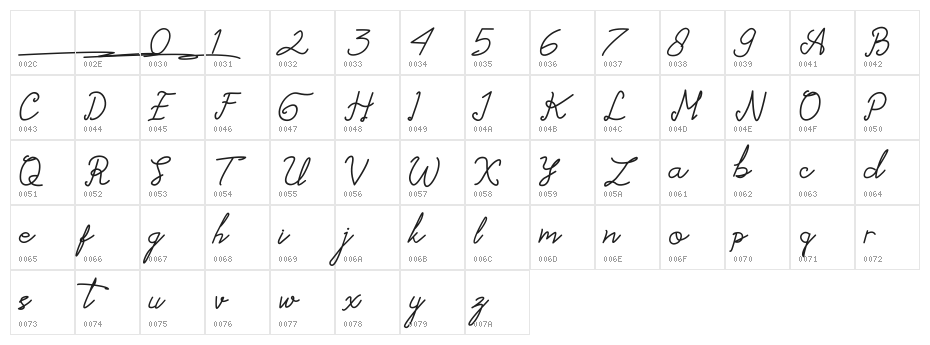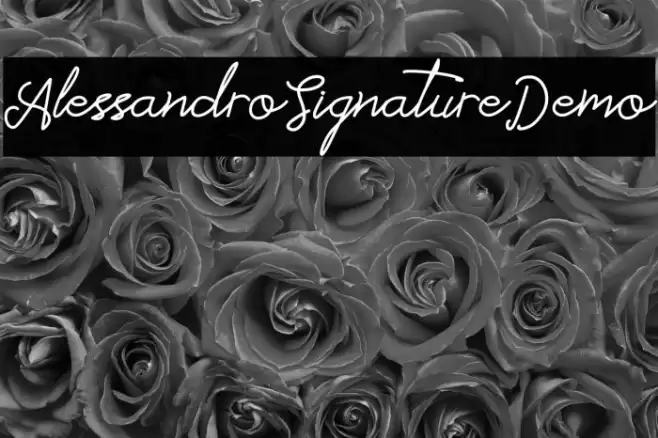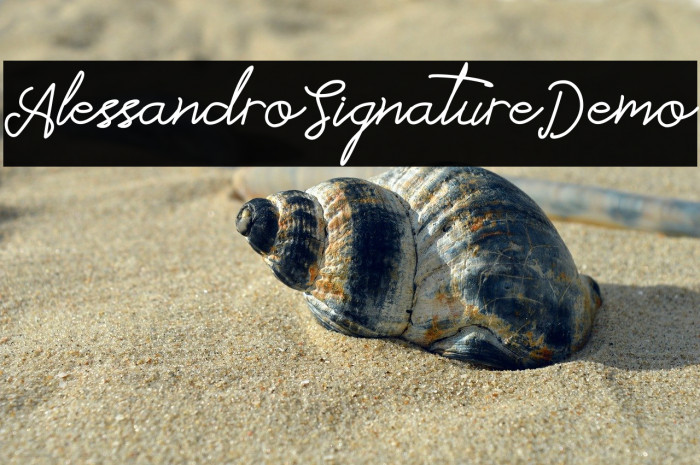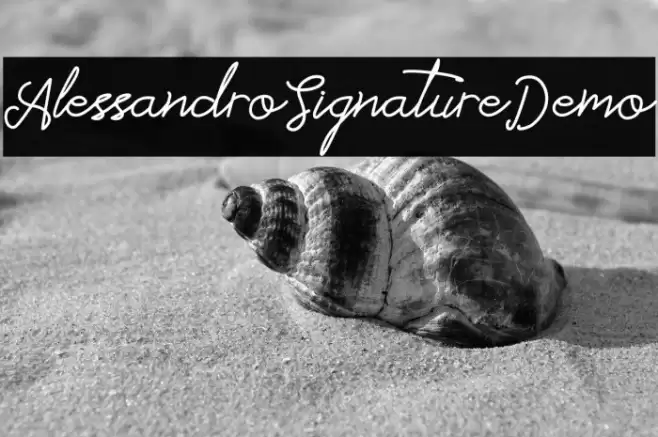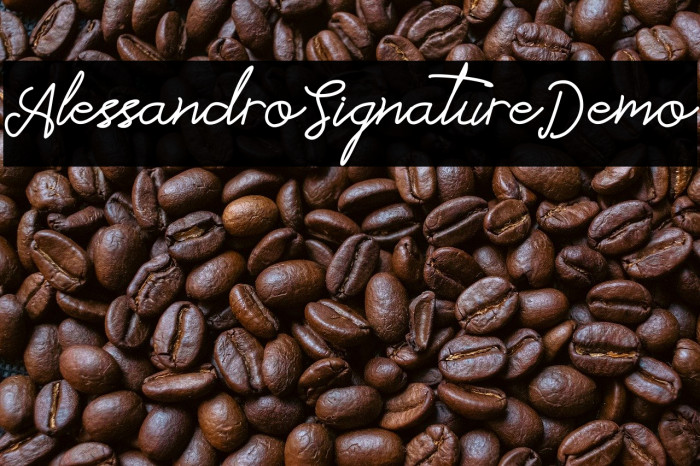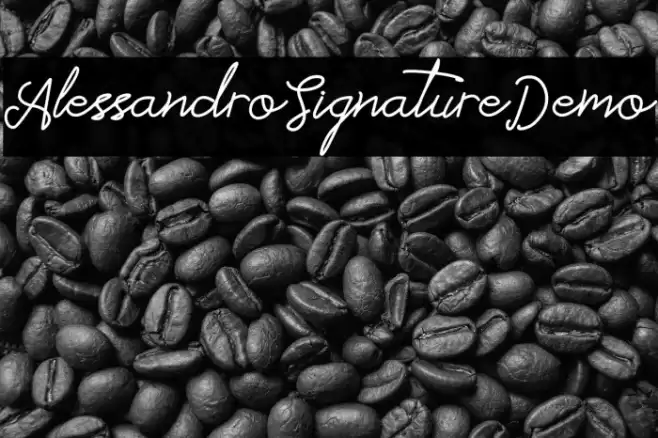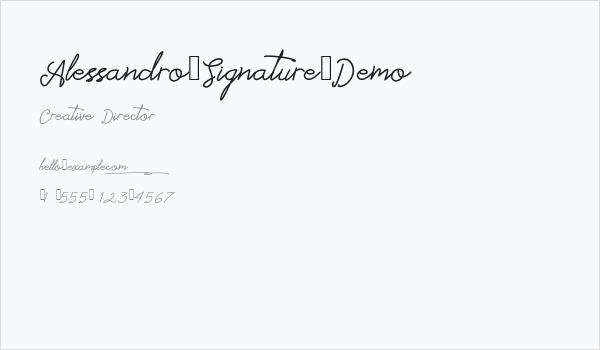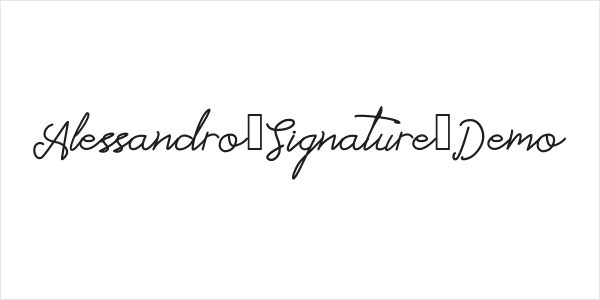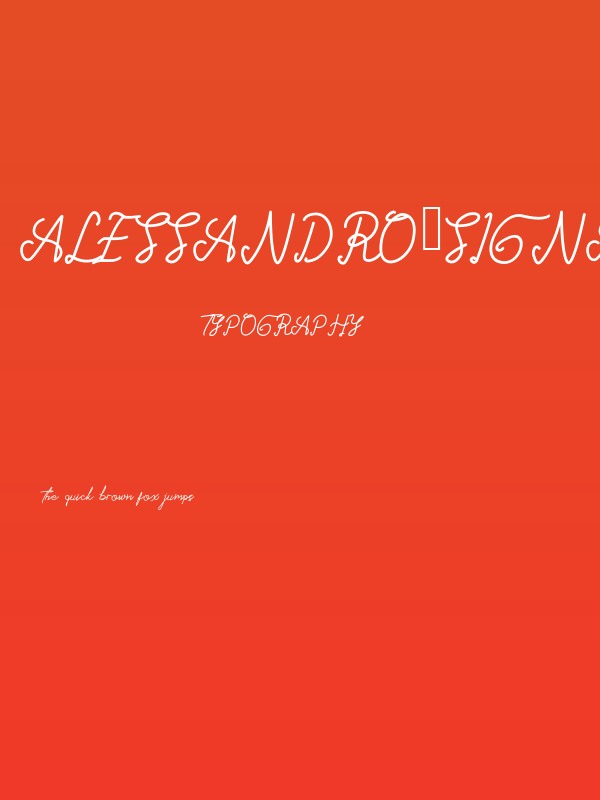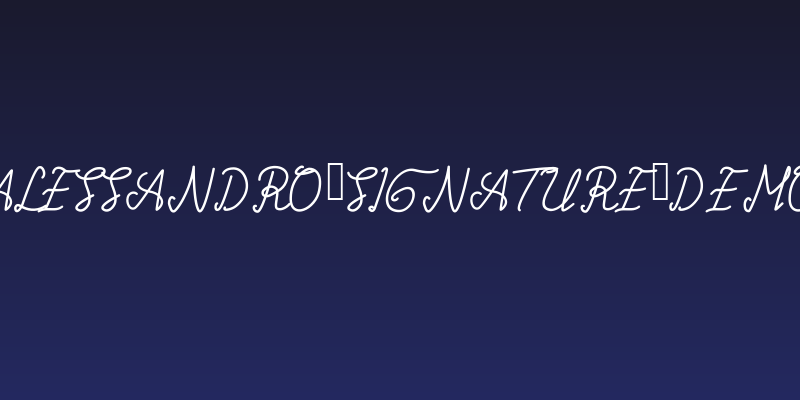
Alessandro_Signature_Demo Font
Alessandro_Signature_Demo Description
This elegant script font features fluid, connected strokes that mimic the natural flow of handwriting. The uppercase letters are gracefully elongated, while the lowercase letters maintain a consistent baseline, creating a harmonious and sophisticated appearance. The numerals are clear and legible, complementing the overall style. The font's design is characterized by its smooth curves and subtle variations in stroke width, adding a touch of refinement. It is ideal for projects that require a personal, handwritten touch, such as invitations, greeting cards, and branding materials.
| Use Case | Logos, Invitations, Personal projects |
| Proposed Projects | Ideal for invitations, greeting cards, branding, and personal projects. |